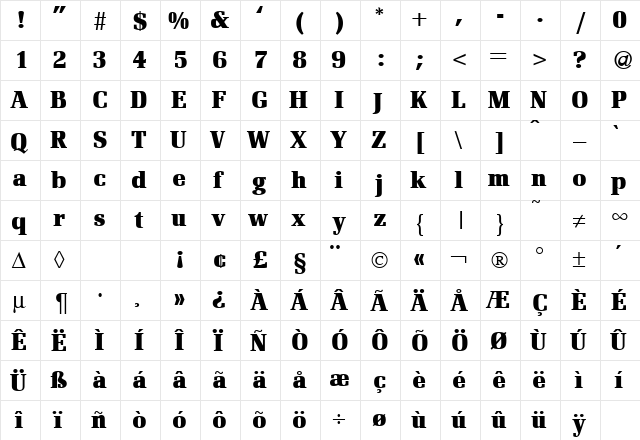
Renowned Bold
Design Context for Renowned Typeface
Renowned offers clean, dependable letterforms without strong stylistic allegiance, making it a practical choice for designers who need flexibility. Its bold stroke weight gives it real presence on the page.